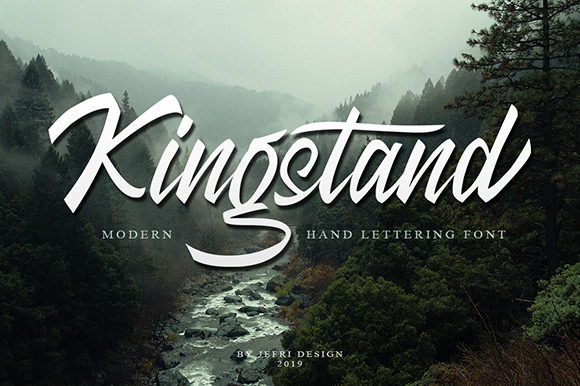
Imagine the elegance of classic calligraphy, infused with the vibrancy of modern style. Immerse yourself in the world of Kingstand Font, a script font family that will transform your creative projects into masterpieces. Crafted by the talented artisans at Bluestype Studio, Kingstand Font is not just a collection of letters; it's an artistic journey that will leave you breathless.
Indulge in the beauty of flowing strokes, carefully designed to evoke a sense of timeless sophistication. Each character in the Kingstand Font family exudes personality, adding a touch of charm to your designs. Whether you're creating wedding invitations, branding materials, or social media posts, Kingstand Font will elevate your work to new heights.
Unleash your creativity and let the Kingstand Font family guide you through a world of endless possibilities. Its versatility knows no bounds, allowing you to effortlessly create stunning logos, eye-catching headlines, and captivating social media graphics. With Kingstand Font, your designs will radiate a sense of elegance and sophistication that will leave a lasting impression on your audience.
But Kingstand Font is more than just a beautiful font; it's an experience. It's an invitation to let your imagination soar and explore the depths of your creativity. Its distinct style will add a touch of magic to your projects, turning them into works of art that captivate and inspire.
Embrace the allure of Kingstand Font and embark on a creative journey like no other. Discover the beauty of classic calligraphy, reimagined for the modern age. Let your designs shine with a touch of elegance and sophistication that will leave your audience spellbound. Step into the world of Kingstand Font today and unlock the boundless potential of your creativity.